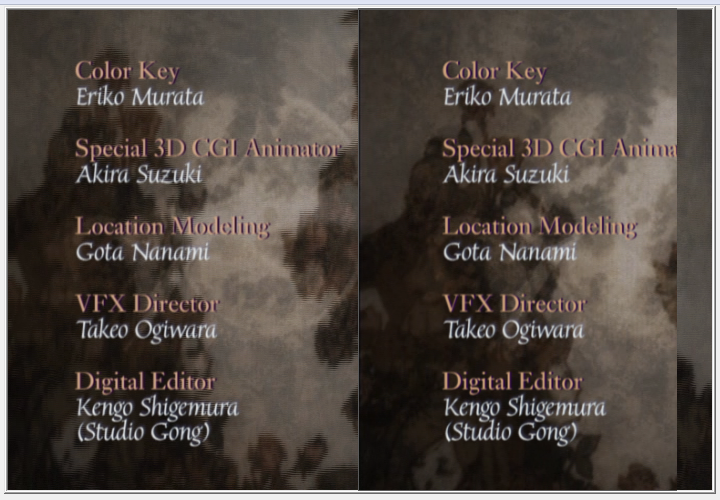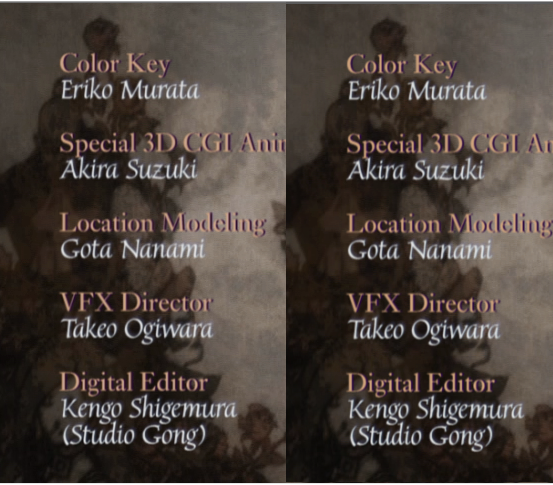
I've choosen a relative thin font for a part of the credits.
It was the only font where I could say, that it fits the context perfectly.
I have choosen a relative small outline of only 4pixels with a light blue which makes it easier to read against the changing background and far easier to spot.
In the preview of course it looks fine but in the lossless export I notice the color temperature has changed... so I feel nothing of the light blue outline which gave it a colder feeling and now it looks relatively uninspired.
Is there a way to make Premiere render the font more strongly?
In the preview of course it looks fine but in the lossless export I notice the color temperature has changed...
How did it change ? maybe some screenshots would help
What format and colorspace did you use for "lossless export"
How are you viewing the lossless export ? What software?
Does it make a difference if you reimport the export back into premiere ? What does it look like ?
Currently I'm using plain uncompressed UYVY 422 8bit.
the left one is still the vector in Premiere and the left one after export
It's just natural tht it gets a little blurry but the color...
4. The preview within premiere is full color RGB, unsubsampled.
Your "lossless" export isn't lossless, it's subsampled 4:2:2. On thin color borders, the color is supposed to change, that's normal and expected because you have 1/2 the color resolution . It's only going to look worse when you deliver in a final format 4:2:0 for DVD or blu-ray (I'm guessing you're going to DVD
Your only option is to use full RGB (that won't help you if you deliver in 4:2:0), or modify the text design
I guess there is not much I can do...tht's the way it's meant to go.
But can't I somehow force a more rigid render of the font?
Only other choice would be do change the font size
I guess there is not much I can do...tht's the way it's meant to go.
But can't I somehow force a more rigid render of the font?
Sorry, I don't understand what you mean by "rigid render of the font" ?
Export it in lossless RGB and will look exactly like the preview in premiere
All your problems can be attributed to chroma subsampling, and use of thin fonts
This is one of the reasons why thin fonts are not recommended for DVD, and especially interlaced DVD (interlaced chroma is even worse than progressive)
Only other choice would be do change the font size
That's what I would do, and/or redesign it in another way
It will go down the way of 4:2:2 and 4:2:0 nevertheless, I'm just a little grumpy now that I dared to use once a thin font it will turn out this way. Guess changing the font size is the only good solution here :/
Not a big problem but just wanted to hear if anybody had an idea to get tht thin font look better without changing it's size
8. You might be able to improve the situation by aligning the text. With 4:2:2 chroma having the text fall on even boundaries will help. For example with 8 consecutive pixels, for blue pixels on a red background:
RRRBBBBR (R=Red, B=Blue)
will be averaged in pairs to reduce the chroma resolution:
RR RB BB BR
giving
R P B P (P=Purple).
But if aligned on even boundaries:
RRBBBBRR
you will get
RR BB BB RR
or
R B B R
thus maintaining sharp transitions between red and blue.
Unfortunately, text usually has random alignments for different characters so changing the location may fix some characters but make others worse.
I see interlace lines in both images, no wait, only on the left one. You put a gaussian blur? So that's why there's some artifacts on the right? And why do the images "wrap"?
That blur changes the overall contrast probably.
If you want the text sharp, you should add it separately as a composite layer.
HMMM, that's weird. The one on the left is just the preview window in Premiere. The right one is the export.
right = export, left = PremiereClick image for larger version